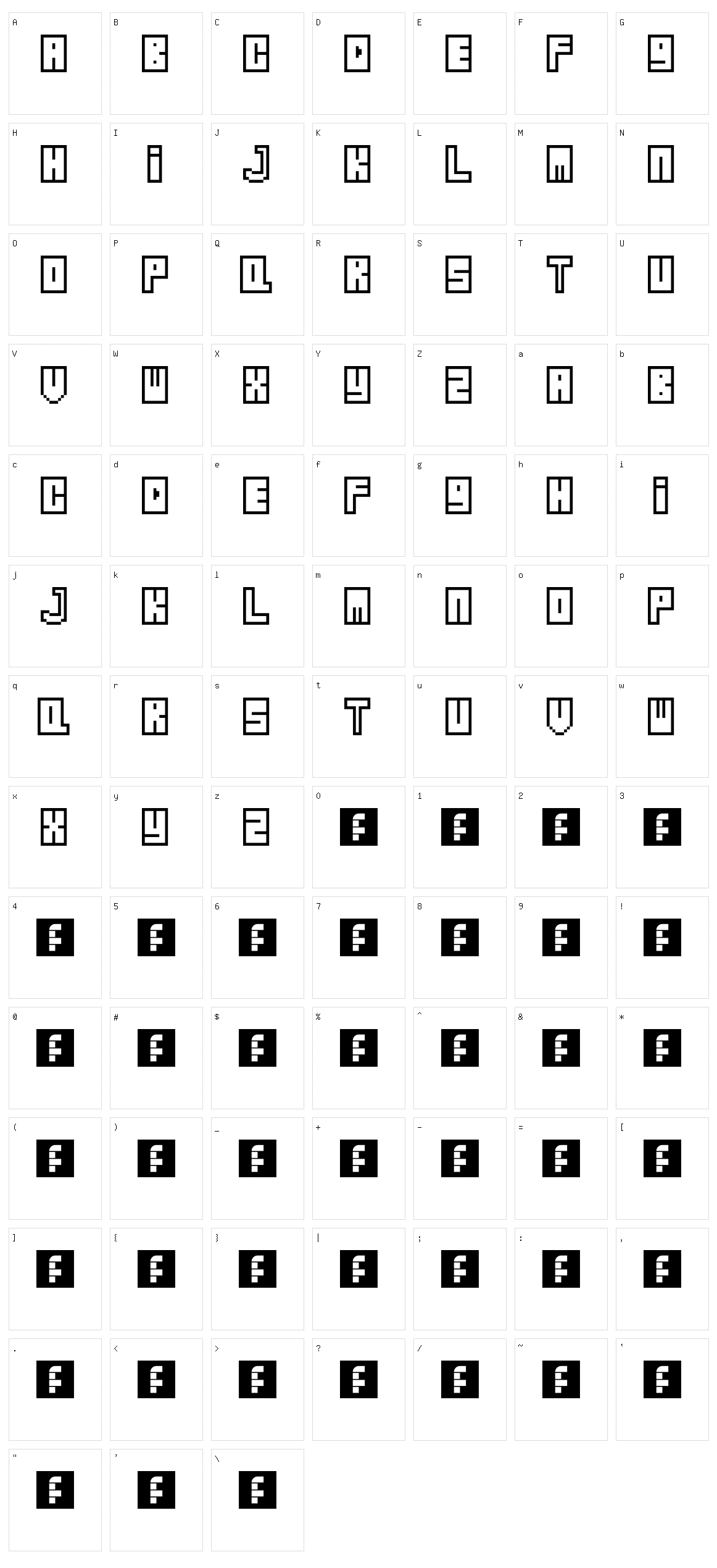
The free font Zipper is carefully designed by Harmful, showcasing a thoughtful balance of creativity and usability and falls under the Square font style. When you download the ZIP file, it contains only 3.36 KB of font files, making it lightweight and quick to download. Please review the license details below to understand permitted usage and distribution rights. If license information is not available, we recommend using this font for personal projects only or contacting the author directly for commercial usage permissions.